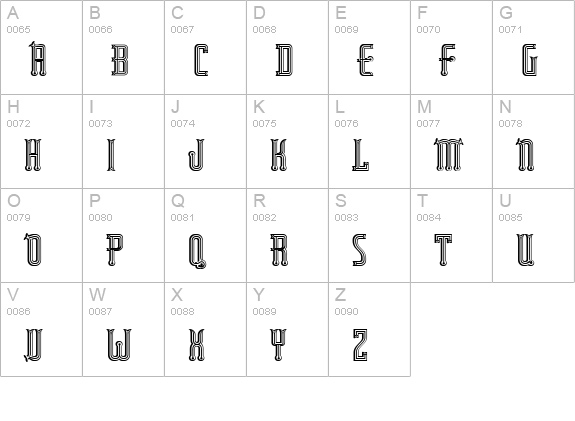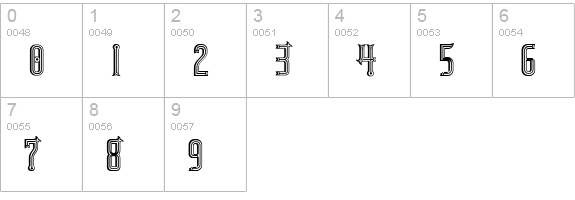
RubaiyatShadow font is a unique and elegant typeface that exudes a sense of mystery and sophistication. Its striking shadow effect adds depth and drama to any text, making it perfect for headlines, titles, and special occasions. The ornate details and intricate design of RubaiyatShadow font make it stand out from the crowd and give your projects a touch of luxury. Best of all, RubaiyatShadow font is available for free download at FontsMarket.com, allowing you to enhance your designs without breaking the bank. Whether you're working on a personal project or a professional design, this font is sure to make a bold statement and leave a lasting impression. Elevate your typography game with RubaiyatShadow font and add a touch of glamour to your creations today.